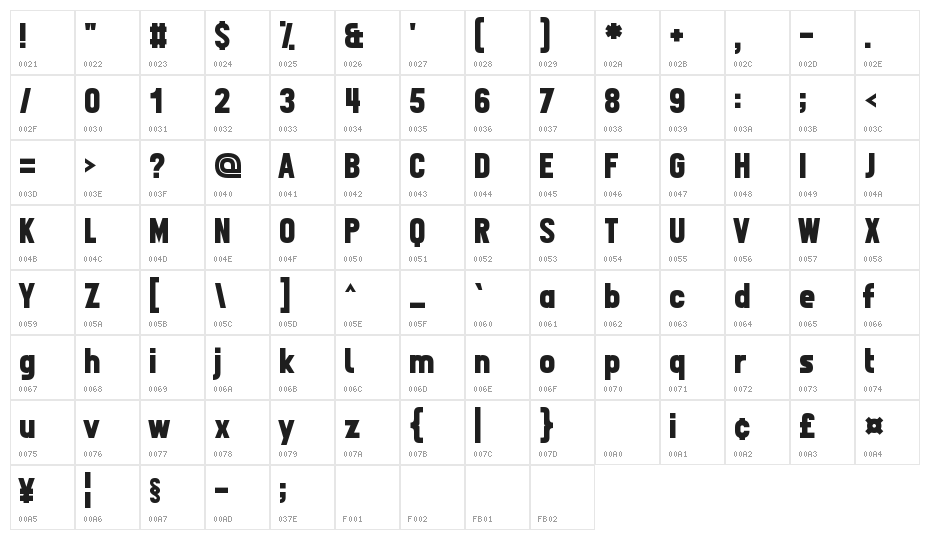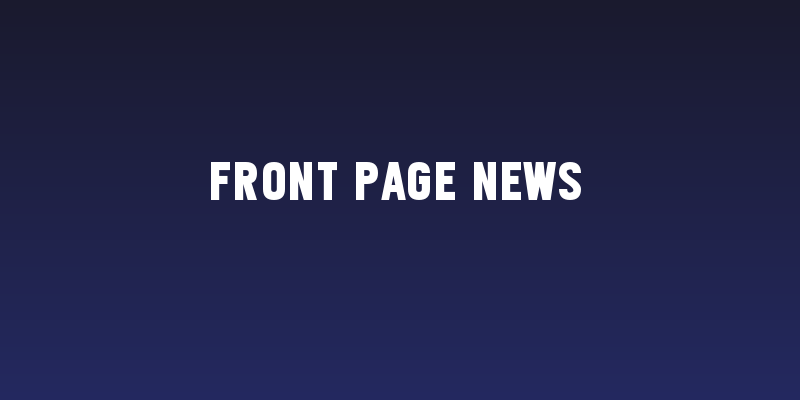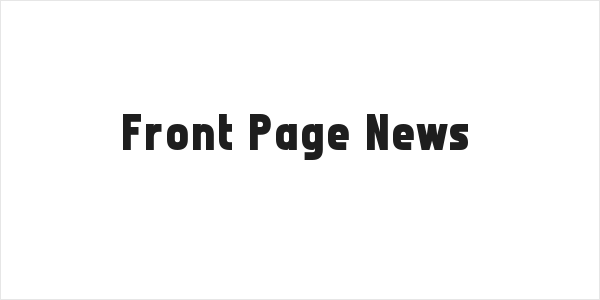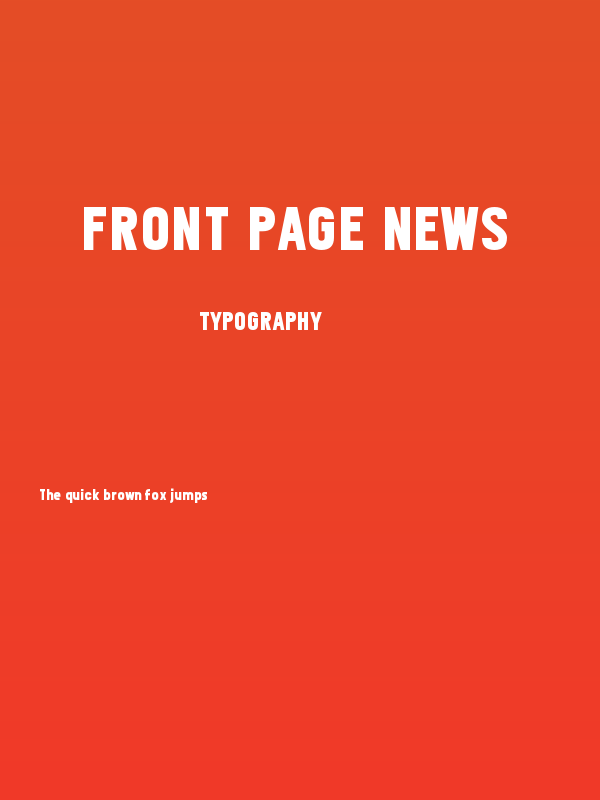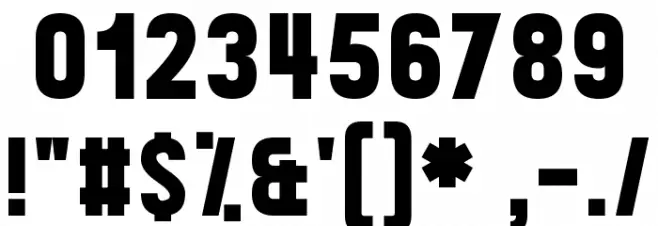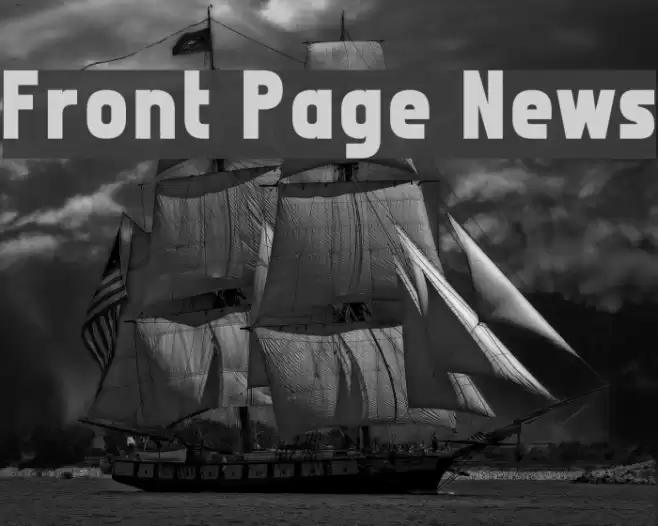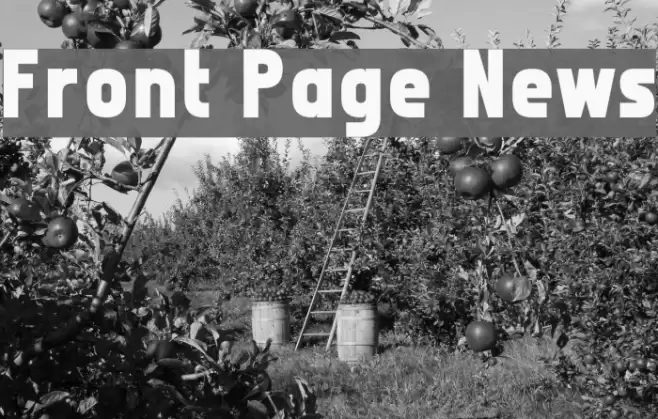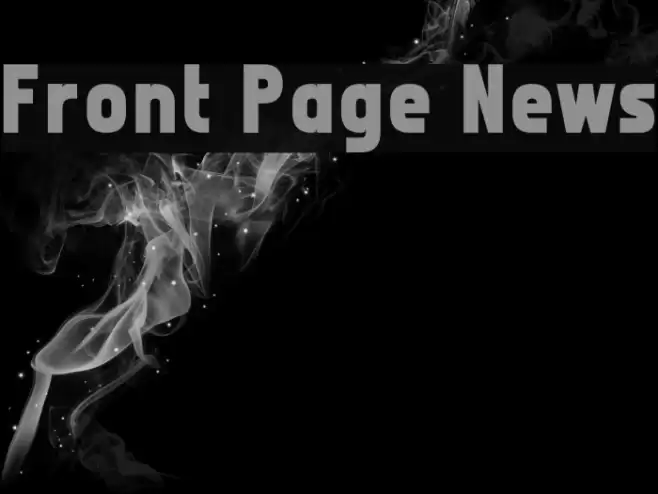
Front Page News Font
Front Page News Description
This font features bold, impactful characters with a strong presence, ideal for grabbing attention. The uppercase letters are robust and assertive, while the lowercase letters maintain a consistent weight, ensuring readability. The numerals are clear and straightforward, complementing the overall bold aesthetic. Special characters are designed with the same boldness, ensuring uniformity across all glyphs. The font's design is straightforward, making it suitable for various applications where clarity and impact are essential.
| Proposed Projects | Ideal for headlines, posters, advertising, and any project requiring a strong visual impact. |